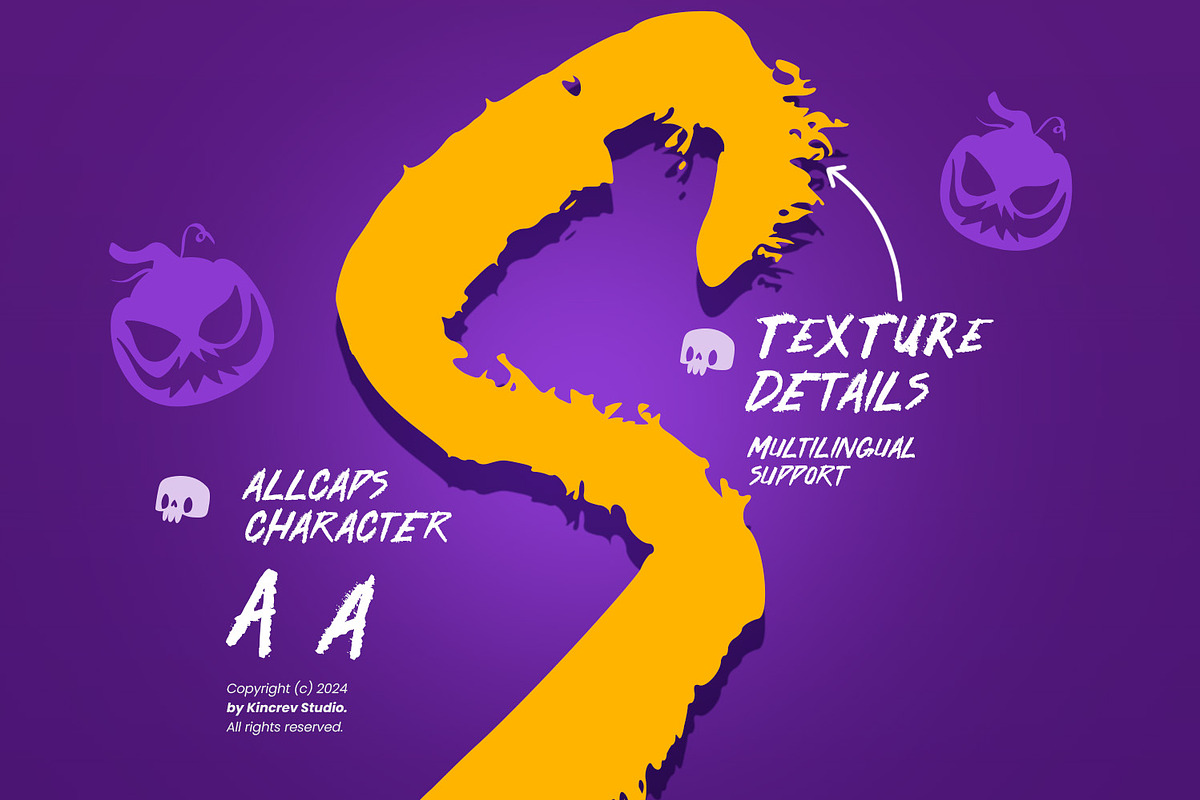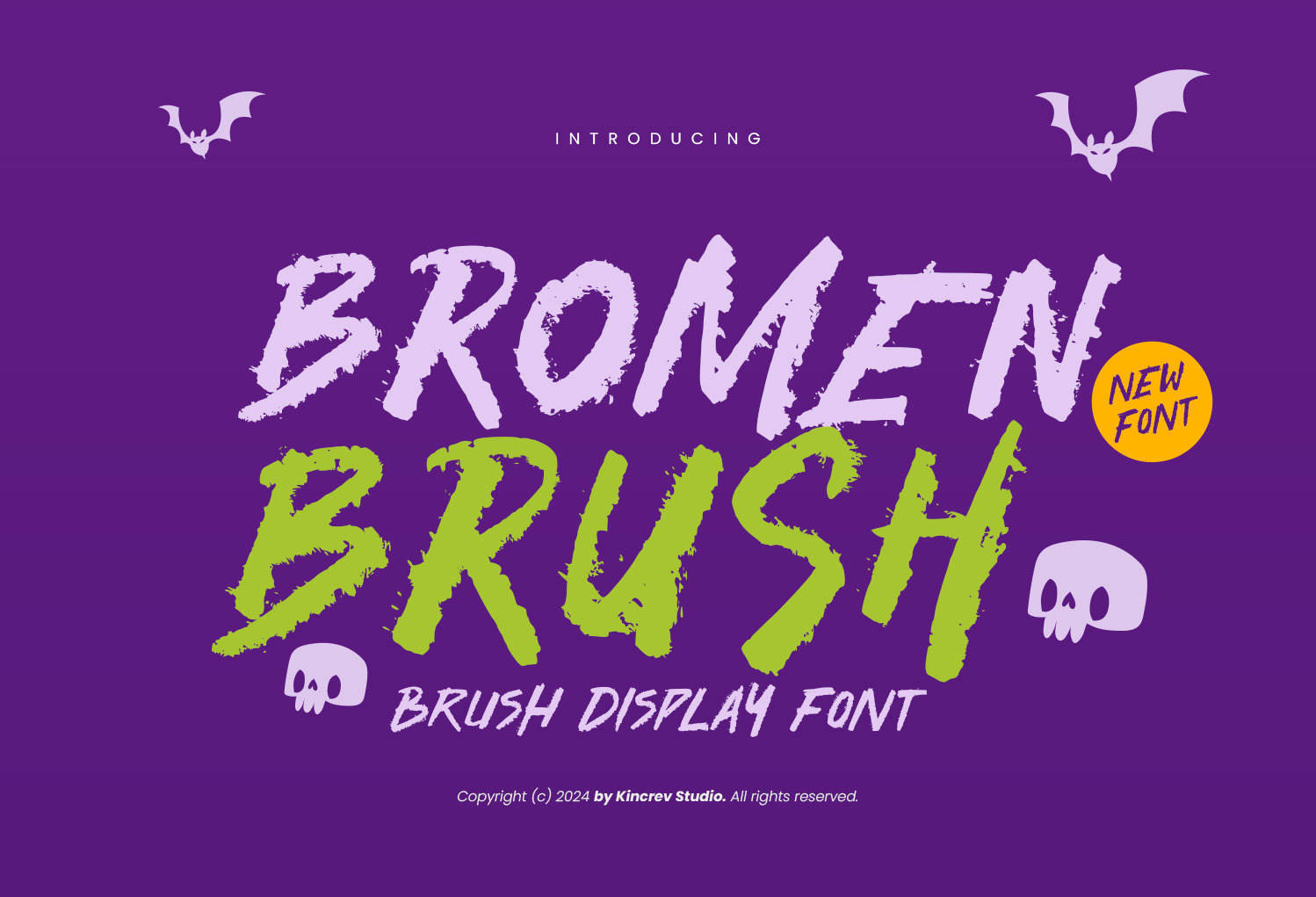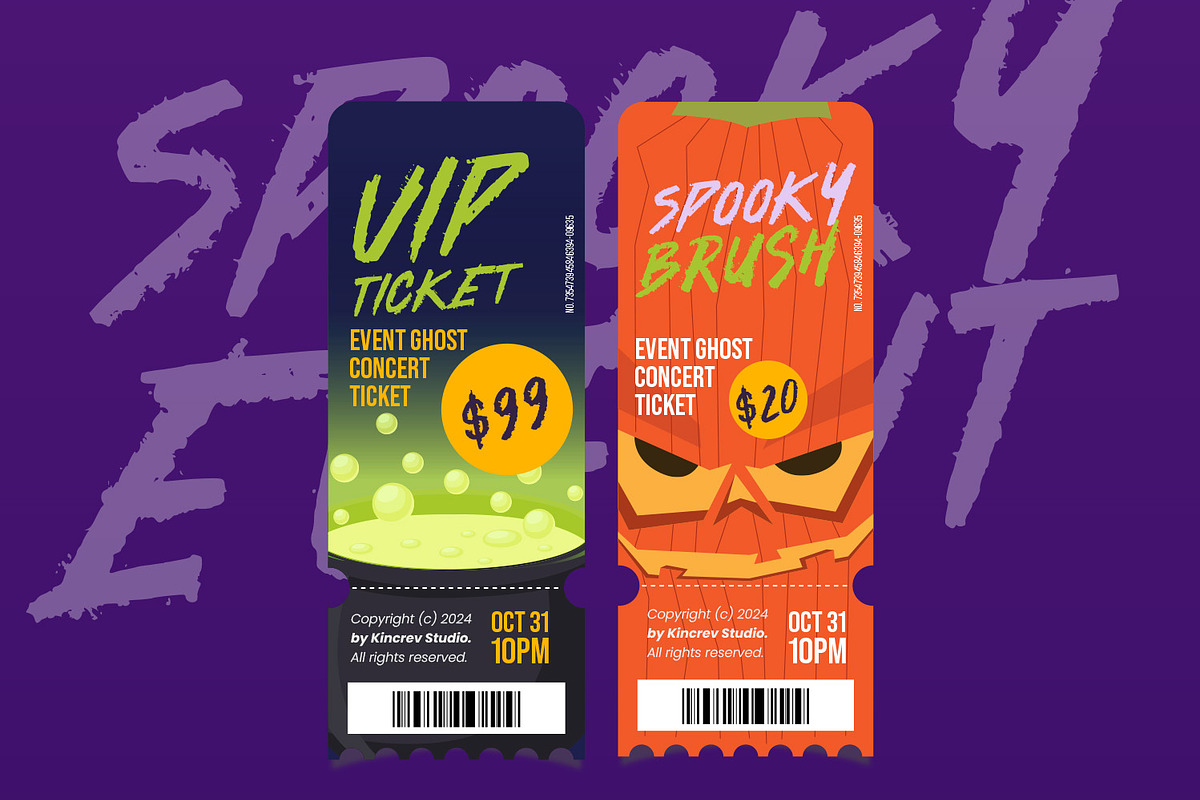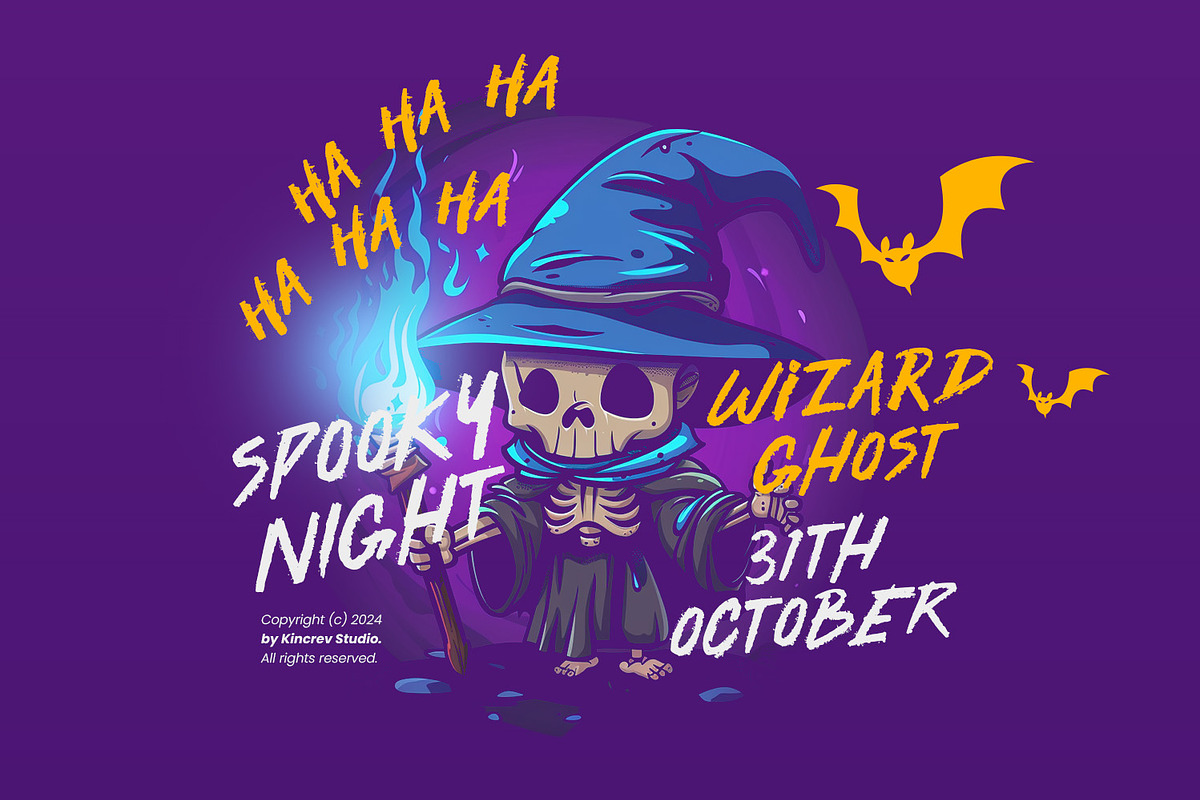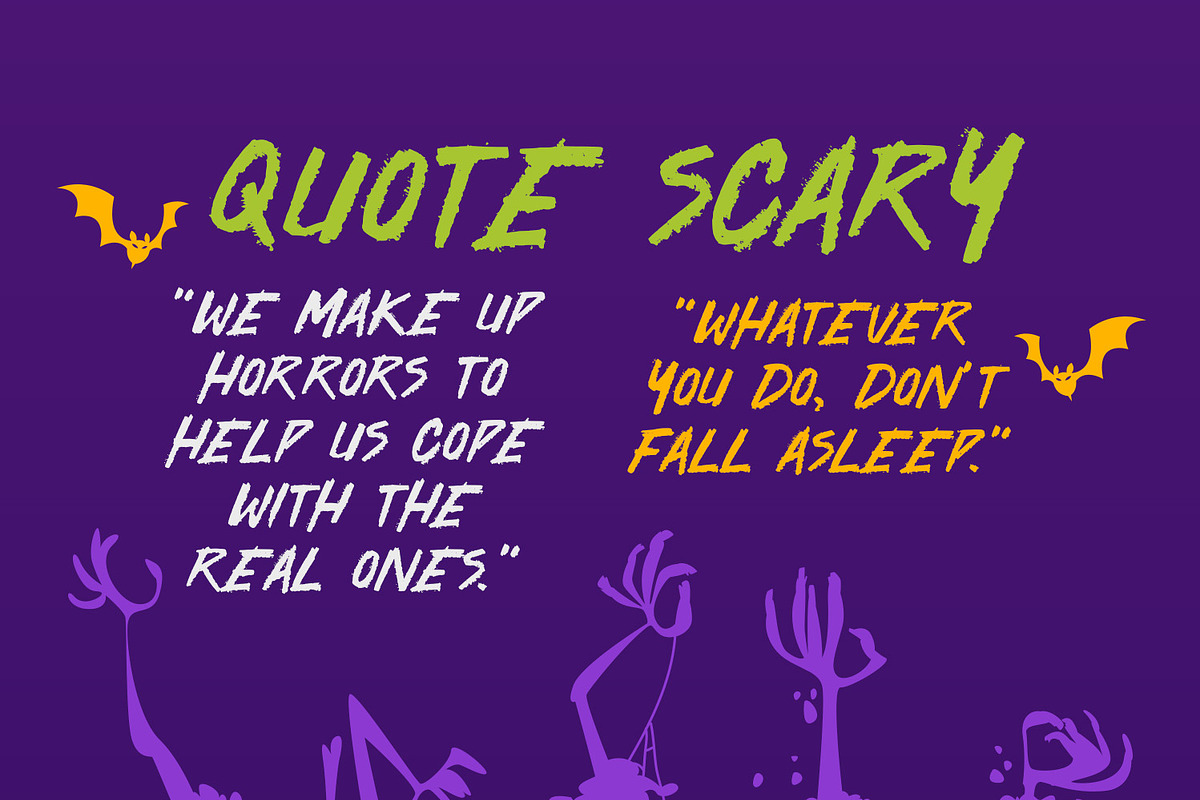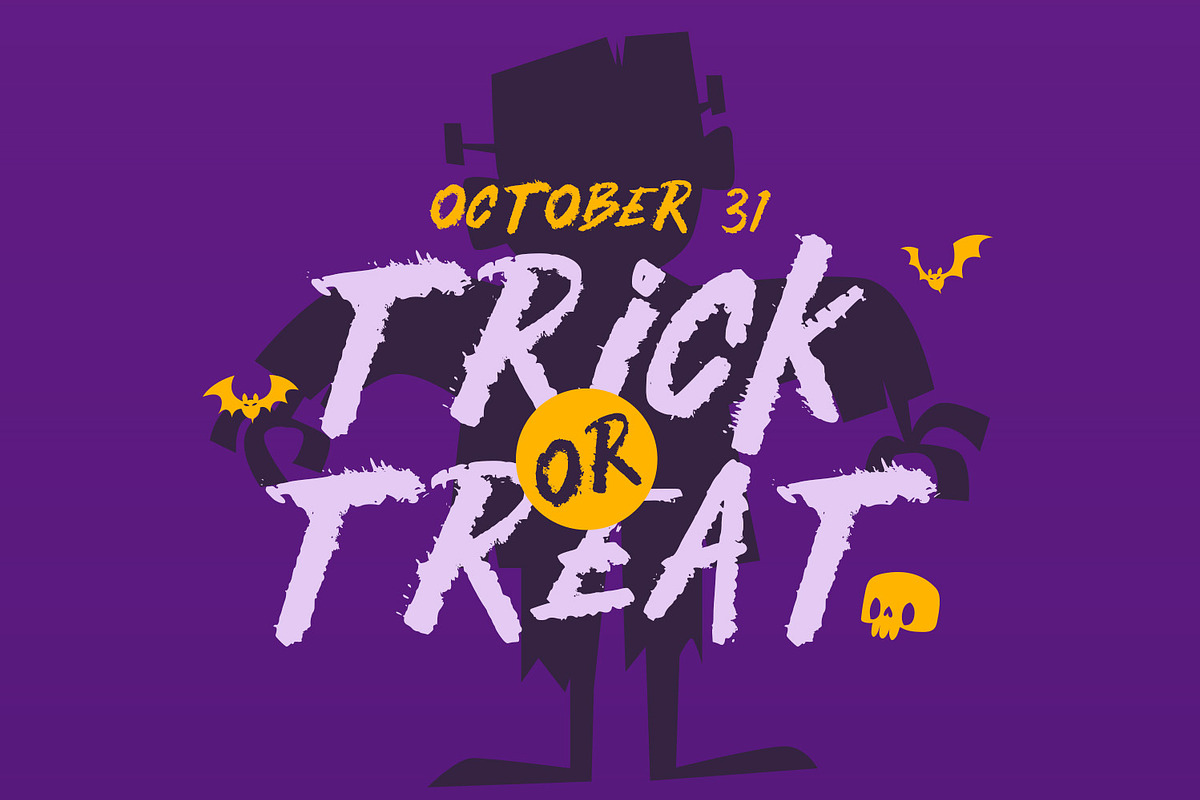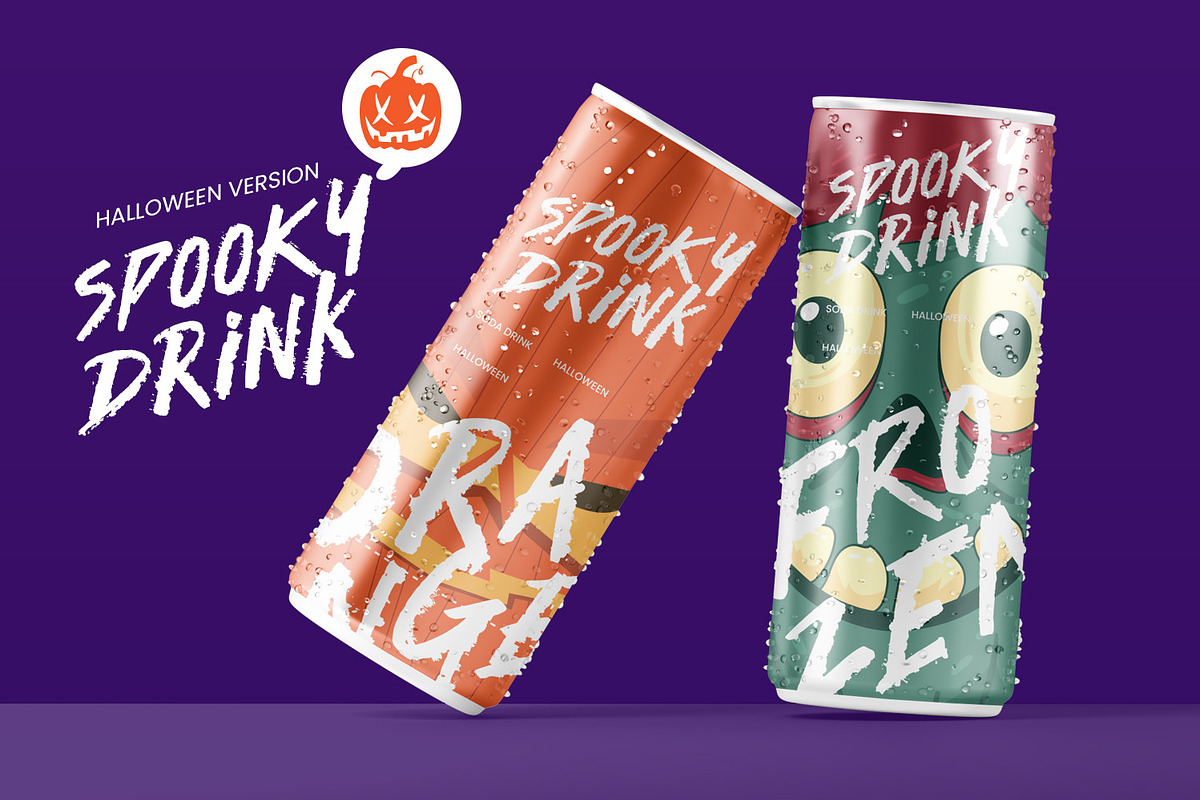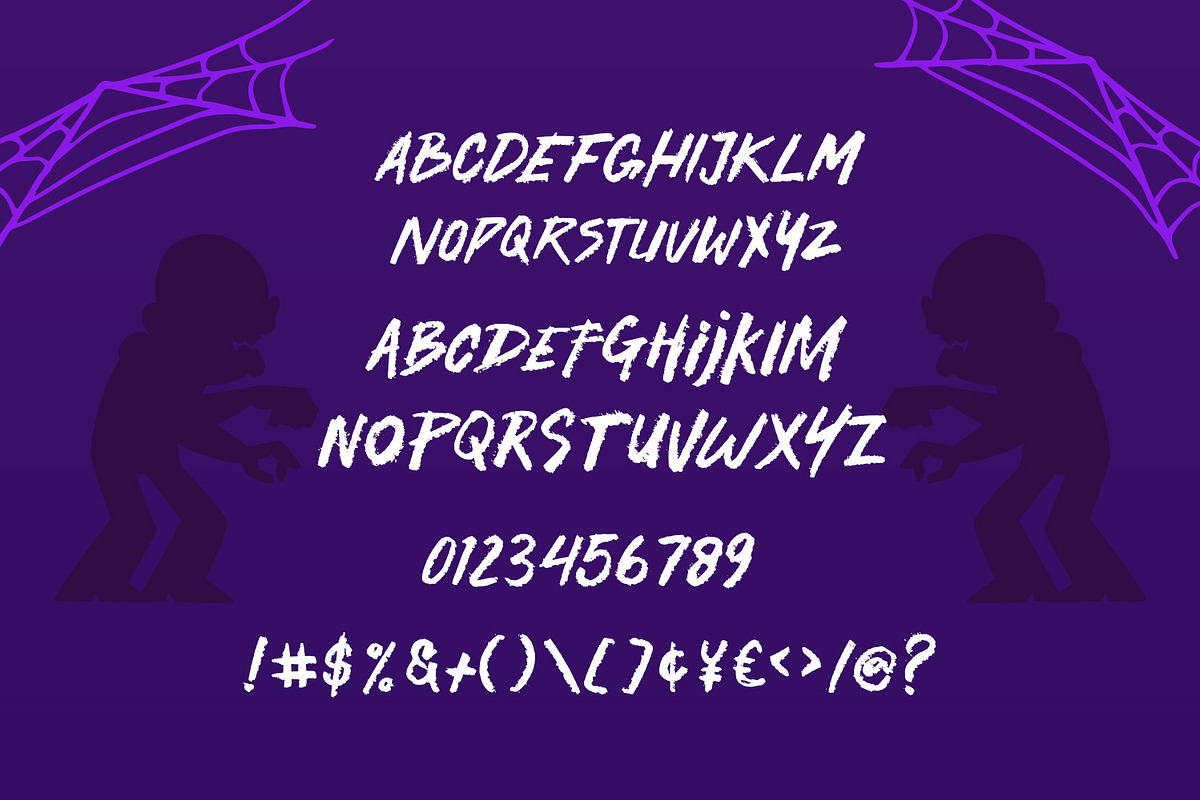
Bromen Brush - Brush Display Font
Hello, Everyone! Ready to make your branding design outstanding? If you need to create a stylist, modern, and unique look for your business, work on a poster for an event, or whatever your projects are, Bromen Brush - Brush Display Font is the perfect one for you.
Bromen Brush, a Brush Font is font for you to get your designs with stylist, modern, and unique look. It is made in all caps letters which are easy on the eyes and nice to look at, and easy to read. This font is designed to bring your brandings to life and add a touch of modernity, fun and style.
Bromen Brush fits for any design projects, such as posters, banners, logos, book covers, album covers, quotes, invitations, greeting cards, name cards, headings, printed products, merchandise, social media, etc. Find out more ways to use this font by taking a look at the font preview.